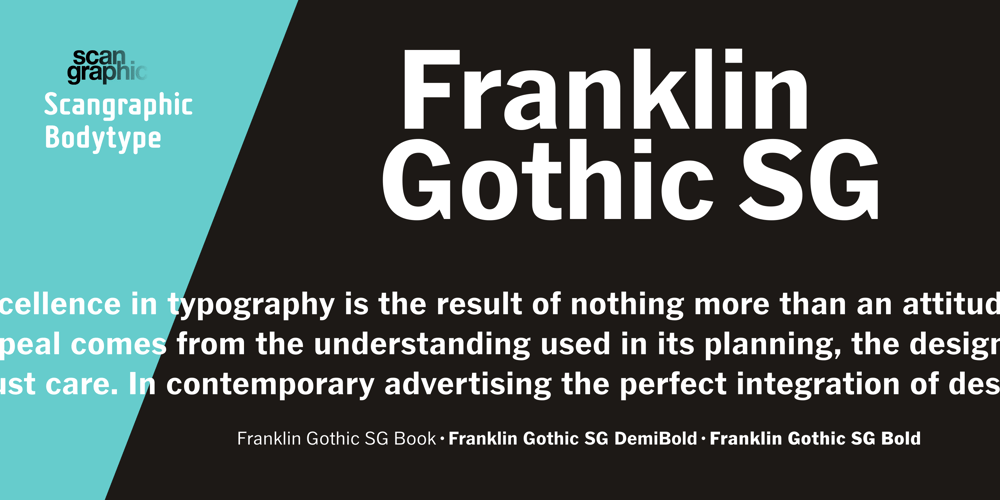
Franklin Gothic SG Font Family was designed by Morris Fuller Benton and published by Scangraphic Digital Type Collection. Franklin Gothic SG contains 3 styles and family package options. Franklin Gothic SG is part of the Scangraphic Collection and designed 1902 by Morris Fuller Benton. Franklin Gothic is a trademark or registered trademark of Kingsley/ATF American Type Founders or its legal successors.